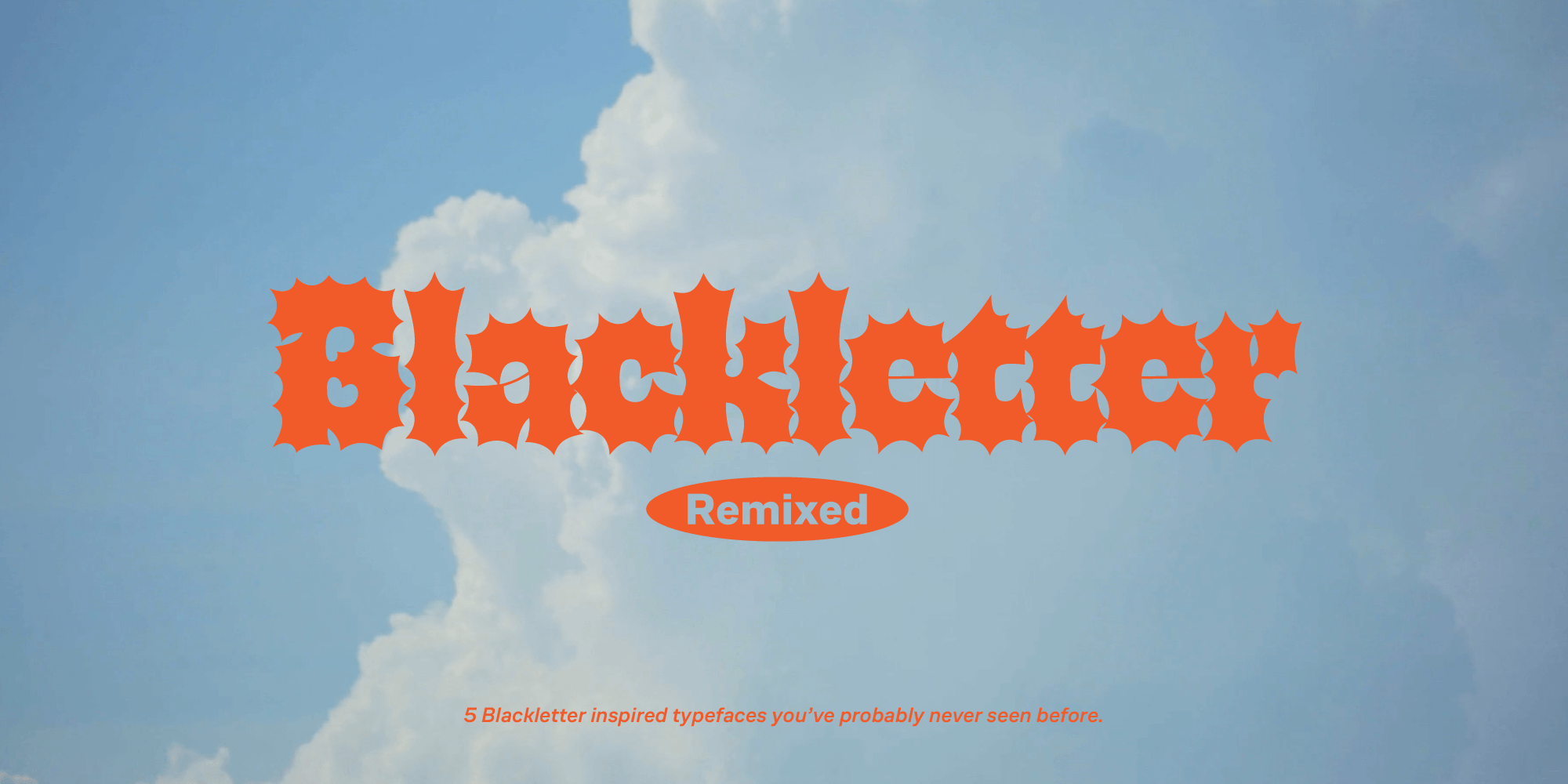
Banger is a thorny, prickly, and potentially explosive blackletter. A lively and energetic typeface that works great for anything that needs a little extra bang. Loosely inspired by decorative blackletters and metal album lettering. Banger is the result of searching for new textures in type and exploring unique methods of making. The typeface avoids straight lines like the devil, and is shaped to be a charming and friendly and readable display face.
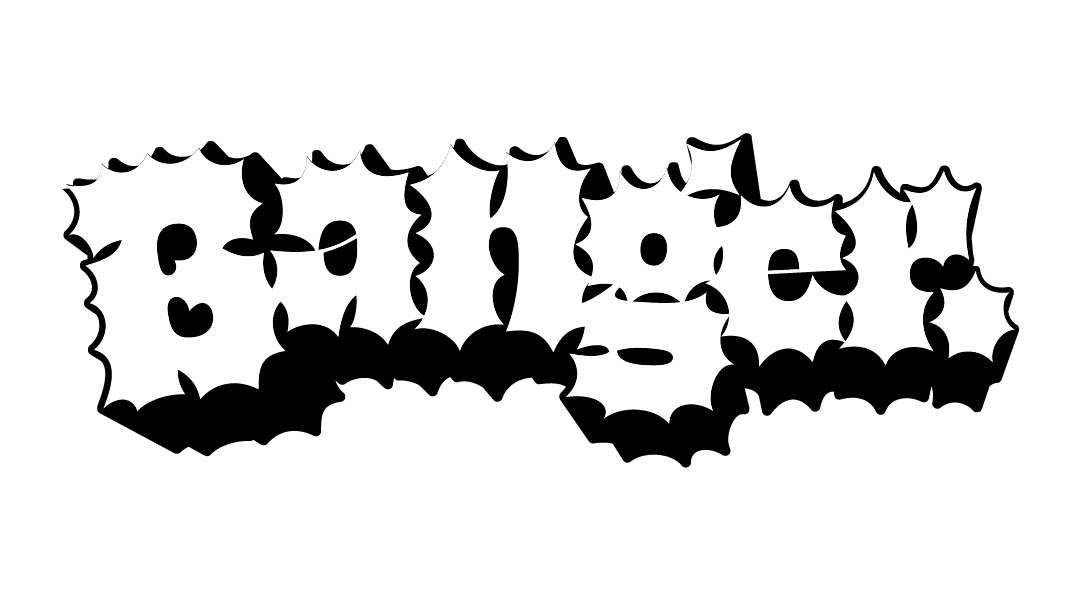
Taüll is inspired by ancient blacklettering, designed to bridge the medieval world with our modern digital smart cities. This southern-flavored typeface transports us to the heart of the Pyrenees mountains, evoking images of tiny villages, Romanesque churches, old huts, and dark forests filled with dragons and princesses.
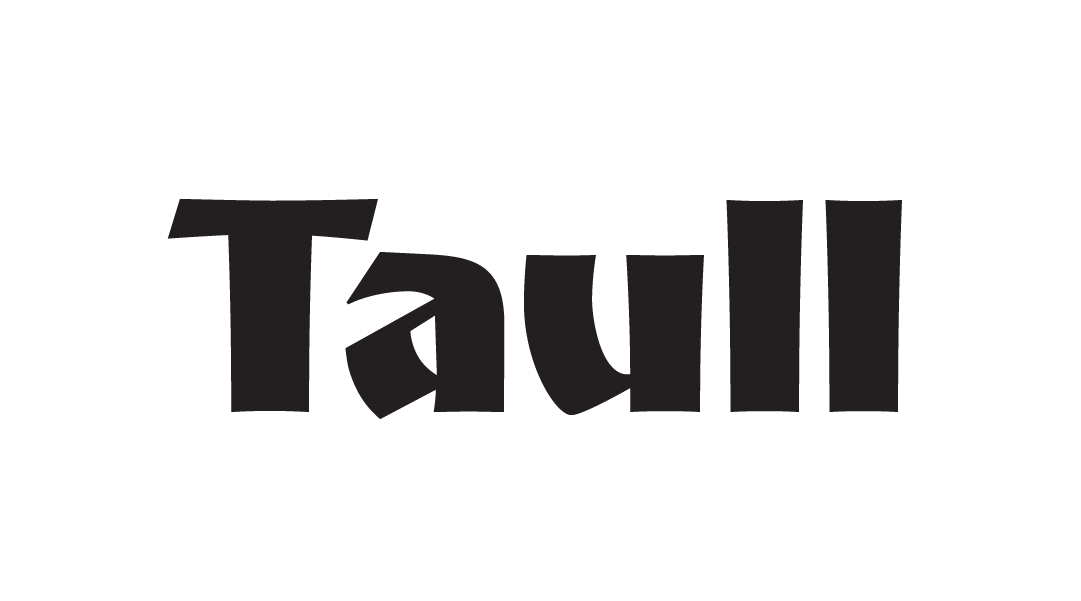
Fakir is a contemporary blackletter which comes in 10 styles. While Blackletters are generally best for short display usage, half of Fakir—Fakir Text—is designed for long texts in small sizes, with a rather conventional regular weight. Together, the 10 styles offer a beautifully blocky blackletter for a variety of uses.
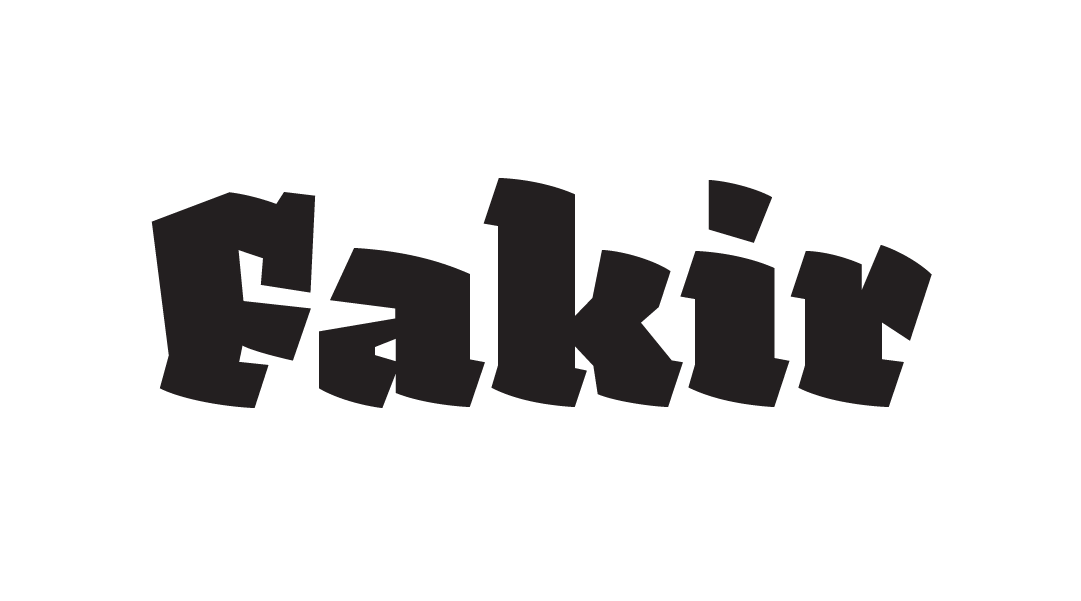
Leather is a digitization and major expansion of Imre Reiner’s forgotten but excellent 1933 Gotika design, which was way ahead of its time. In the twentieth century, the design saw very little use because it caused problems for printers, as the thin serifs and inner bars were too fragile and broke off too easily when used in metal. Not a problem for screens, though! A benefit of our modern world is the ability to finally enjoy Leather’s timeless design.
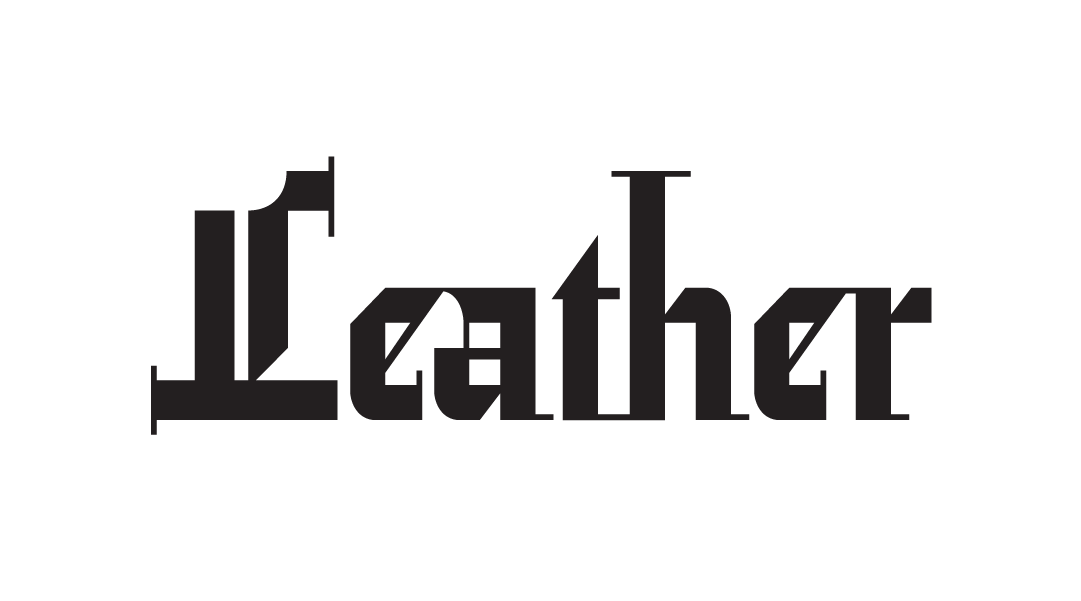
Cloisterfuch is a chunky, striking blackletter that takes the varying pen angles and waisted strokes found in calligraphic scripts and pushes them to the extreme. The result is an exaggerated, blocky face with personality... best viewed large!